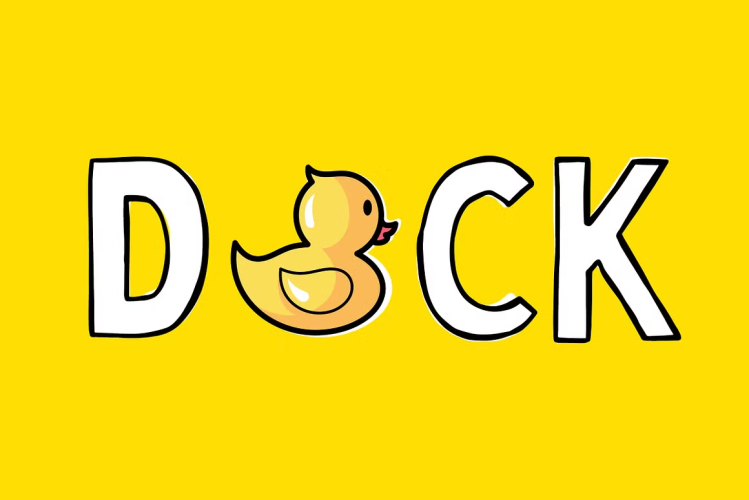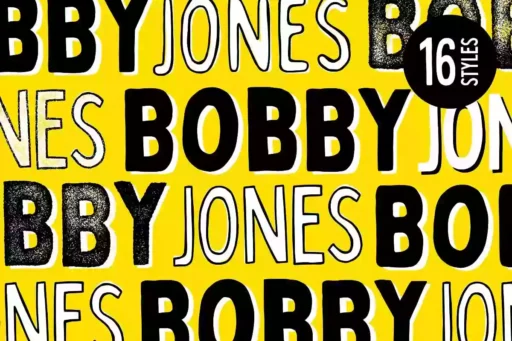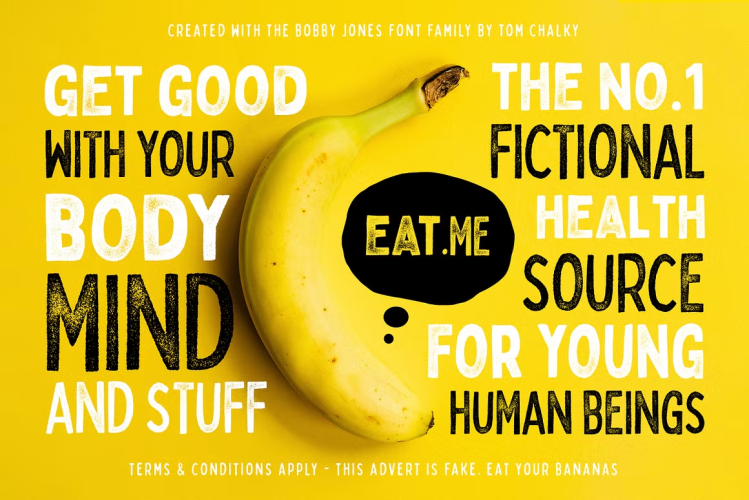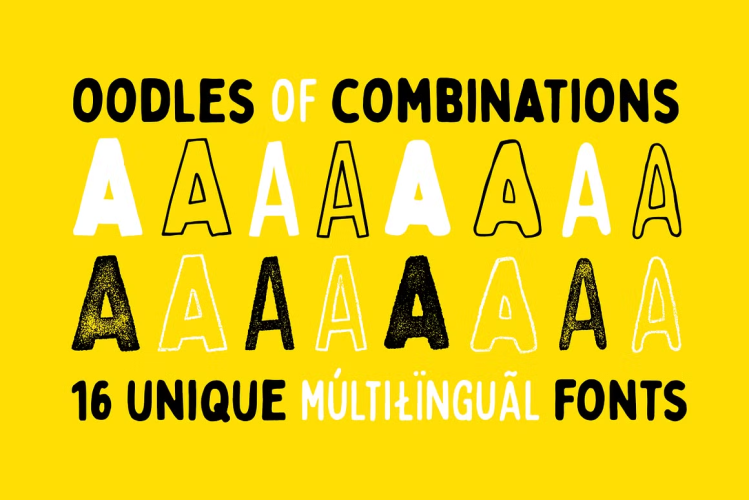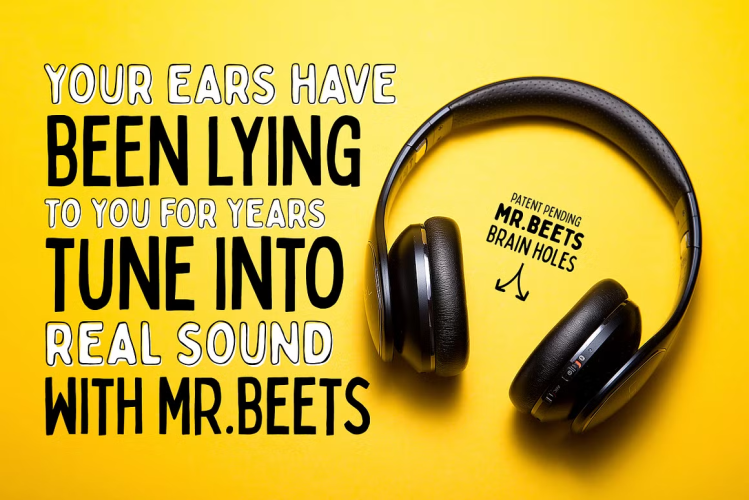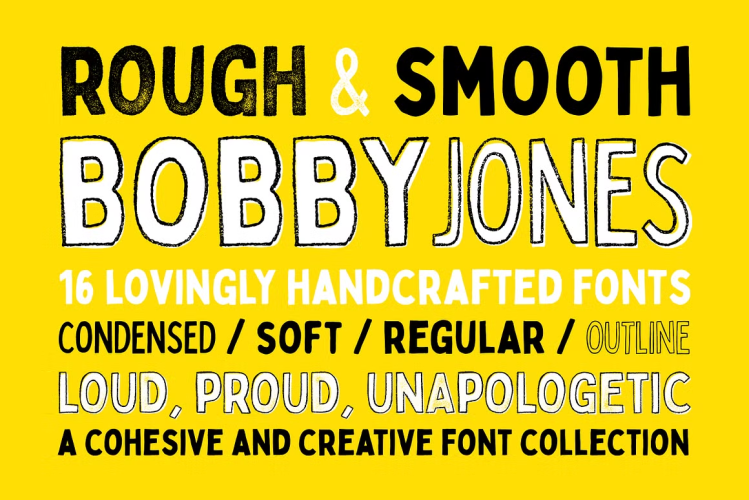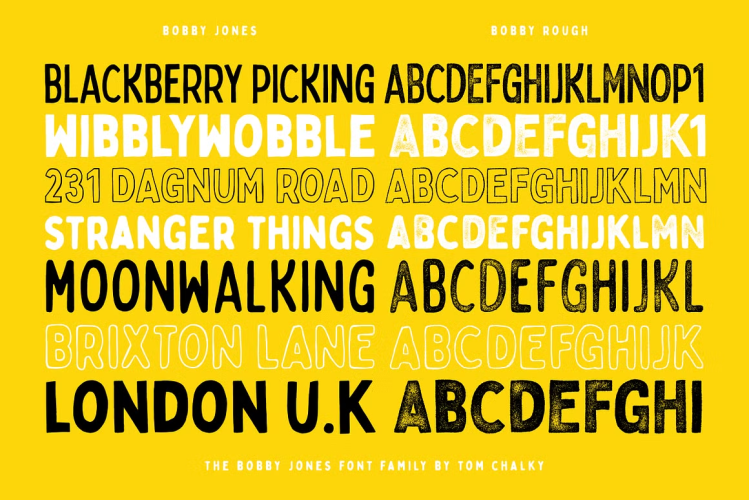
Bobby Jones Font
Introducing Bobby Jones Font Collection, a juicy set of 16 handmade fonts full of character and power. These fonts are the best for many creative projects, ranging from eye-catching ad campaigns to captivating logo designs, trendy apparel, and delightful printed stationery. When choosing Bobby Jones fonts, your work will stand out for all the right reasons.
Bobby Jones’s fonts are distinctive and celebrate eccentricities and imperfections. Despite his lines being a little crooked, his corners irregular, and his straightness not straight, he is an absolute badge of honor with his flaws. Bobby is too occupied with flaunting what he owns to bother with going with the flow. He’s big on individuality and makes a massive statement with each letter.
Each of the fonts listed below boasts multilingual glyph ranges and their own individually handcrafted outline style!
Where Bobby Jones Font works best
Bobby Jones Font is built for size: event posters, hero headlines and billboard-style layouts.
High contrast display type like Bobby Jones Font reads instantly in thumbnails and motion graphics.
What is Bobby Jones Font good for?